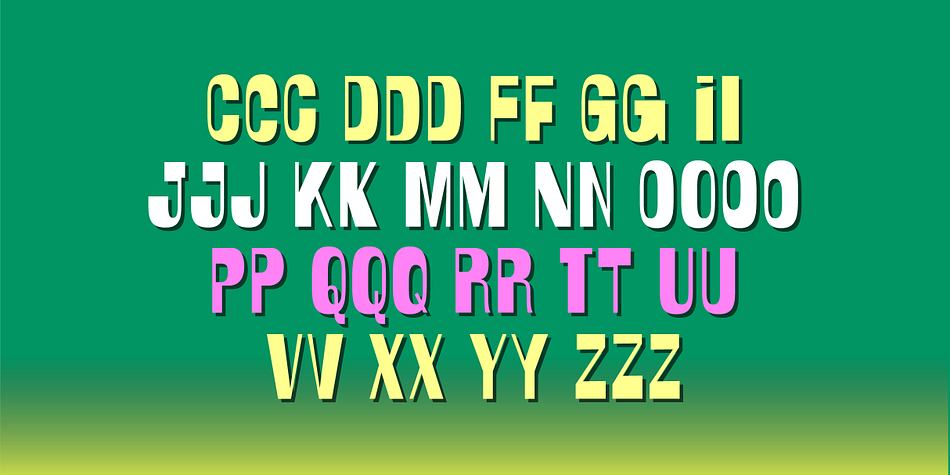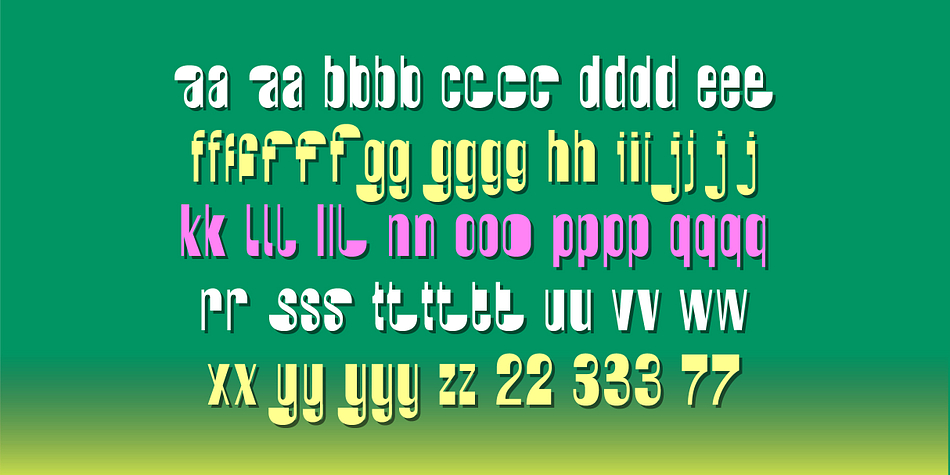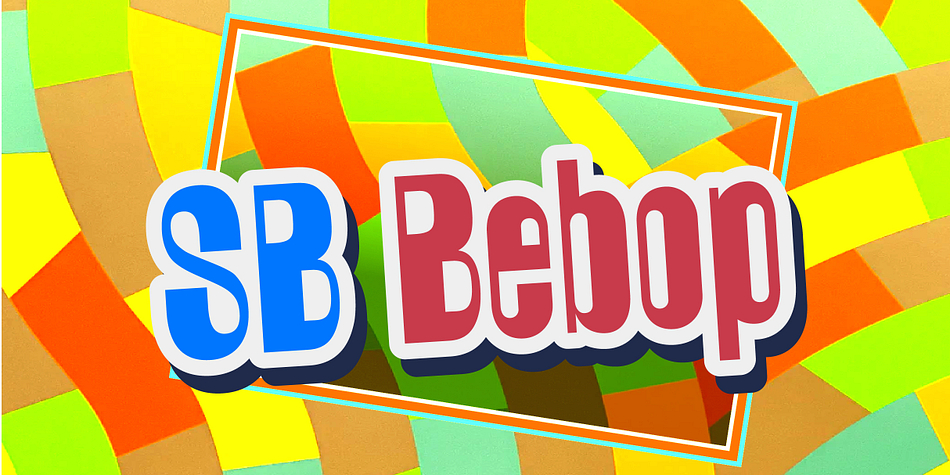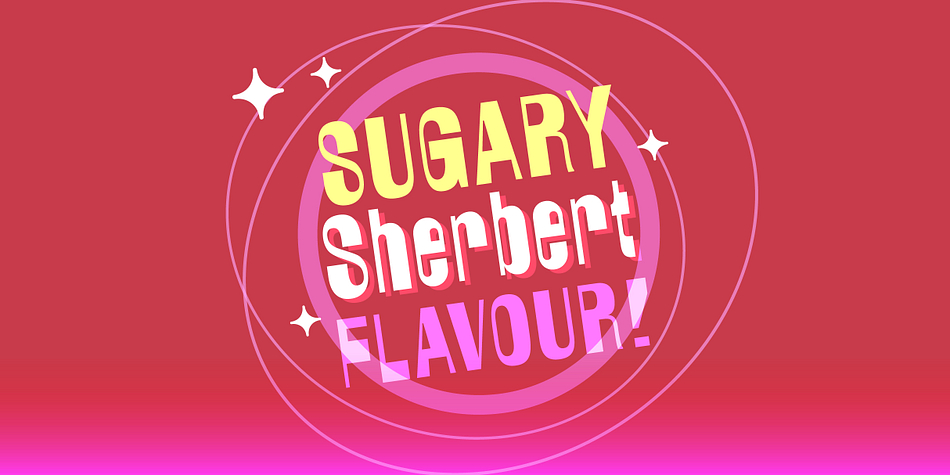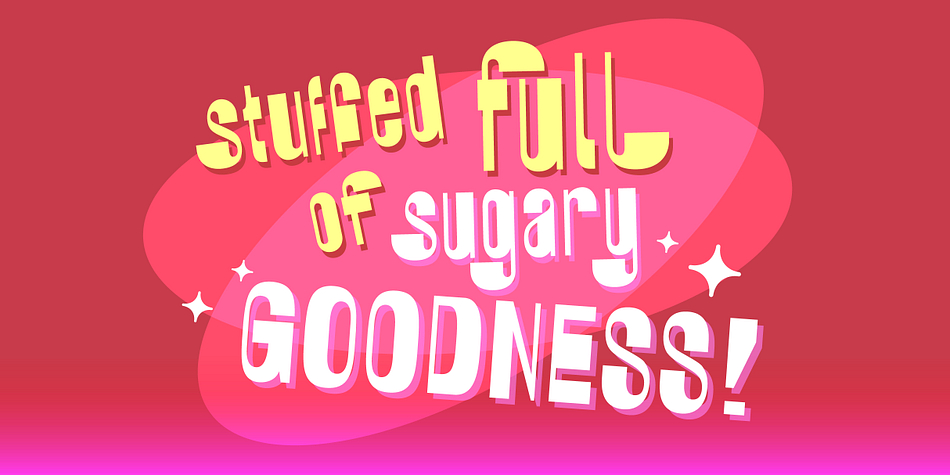
Designed by Craig Stainton, SB Bebop is a display and hand display font family. This typeface has two styles and was published by SelfBuild Type Foundry.
SB Bebop is a cartoon style font with lots of alternative characters! Also comes in a rough, distressed version for a retro rough paper feel.